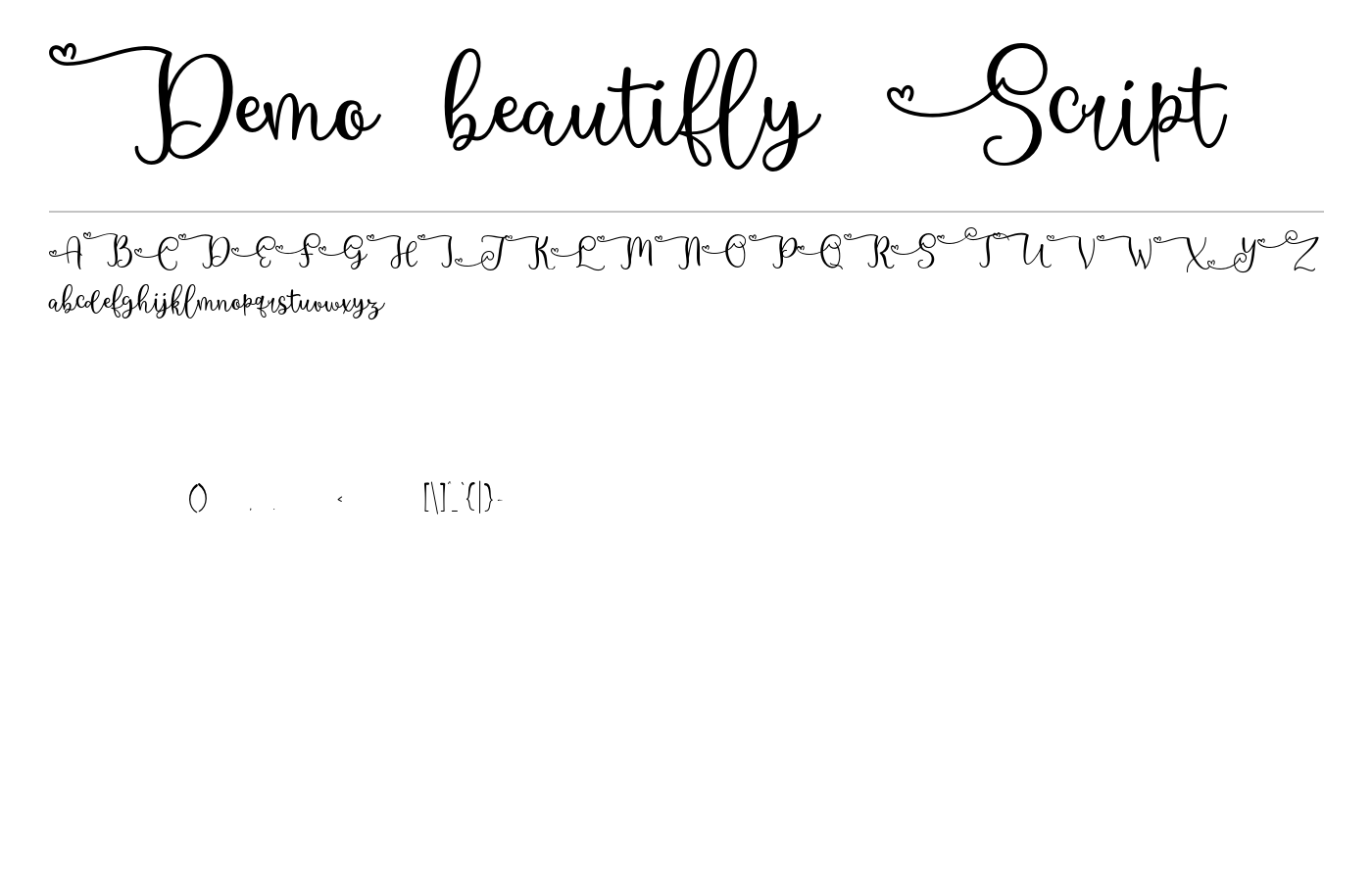
Demo beautifly Script is a delicate, playful script font with elegant, flowing letterforms featuring charming heart-shaped flourishes. Its thin strokes and whimsical style make it perfect for romantic invitations, greeting cards, or feminine branding where a personal, hand-crafted touch is desired. This font brings a light, cheerful vibe that suits creative projects aiming to feel both sweet and stylish.
Demo beautifly Font
About Demo beautifly Font